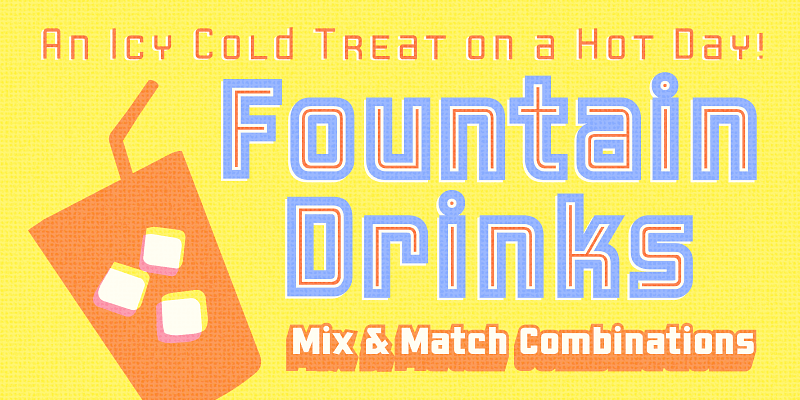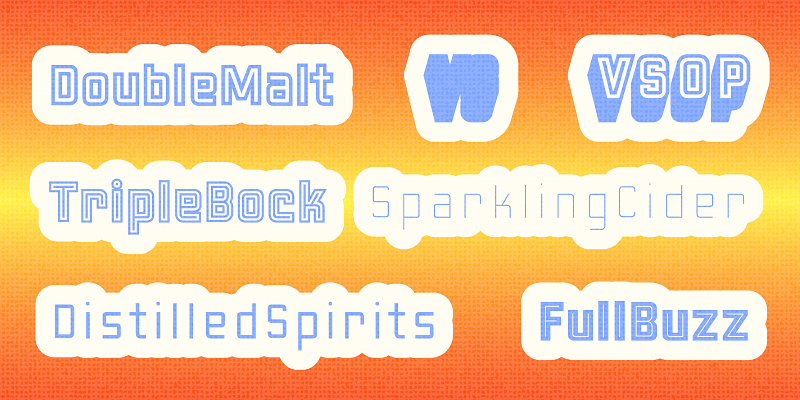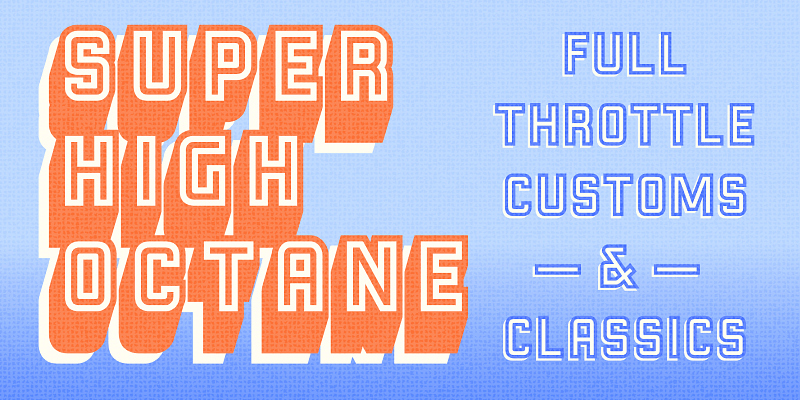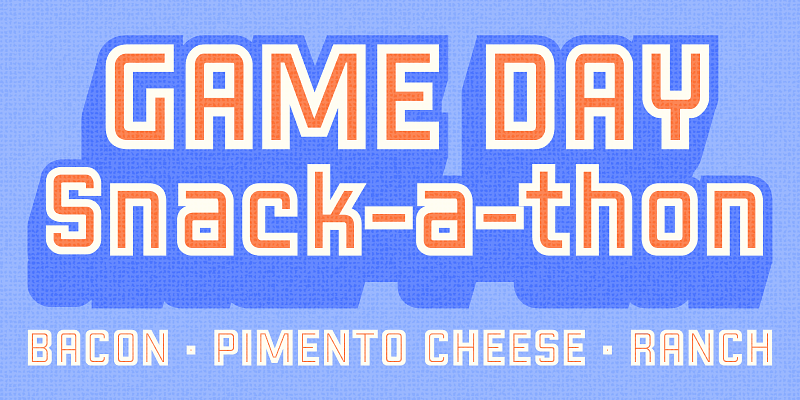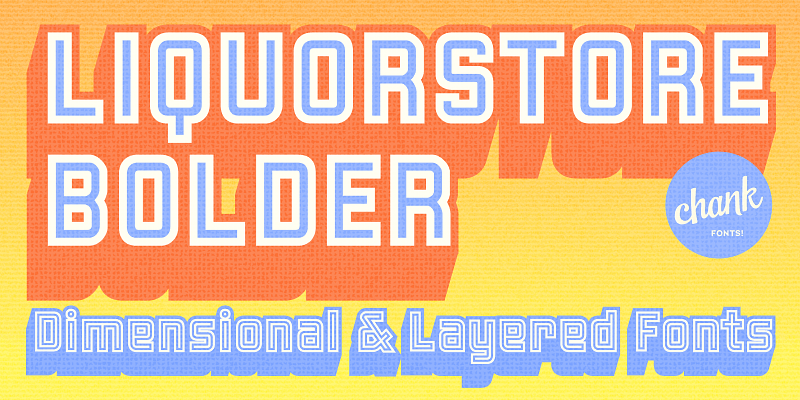
Liquorstore Bolder takes the original Liquorstore and makes it… bolder! Both families draw inspiration from hand-painted liquor store signage in Minneapolis, constructivist propaganda posters, and old magazine logos. Chank created them as a simple, elegant exercise in font creation based on basic geometric forms with subtle, humanist sensibilities. Works great for headlines, labels, and signage. A simple and versatile, must-have display poster font!
Chank Diesel established Chank Co, in 1996 which he operates from his home office in Minneapolis, Minnesota. He creates primarily display typefaces full of humor, strength and personality. His fonts were featured in the Smithsonian’s Cooper-Hewitt National Design Museum as “important examples of contemporary typography.”